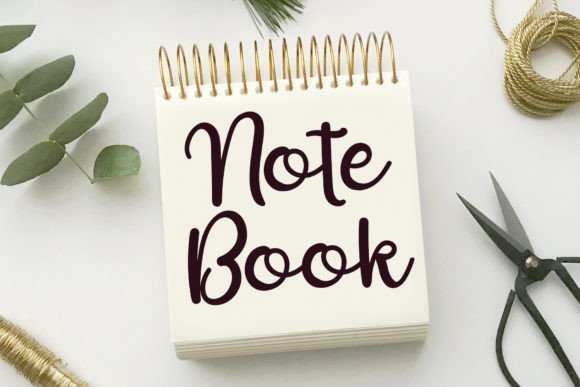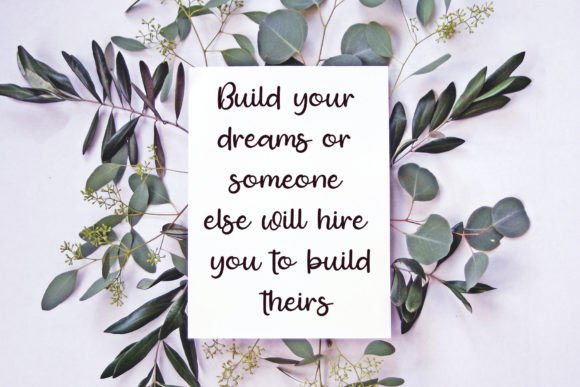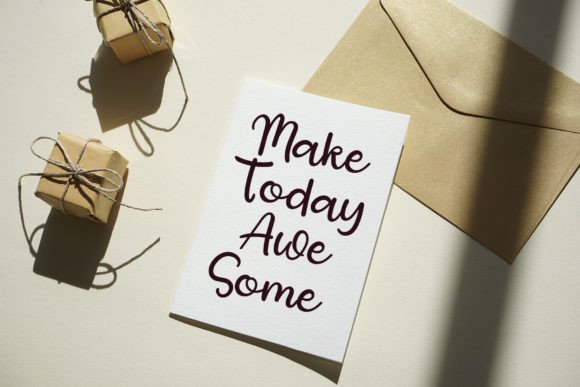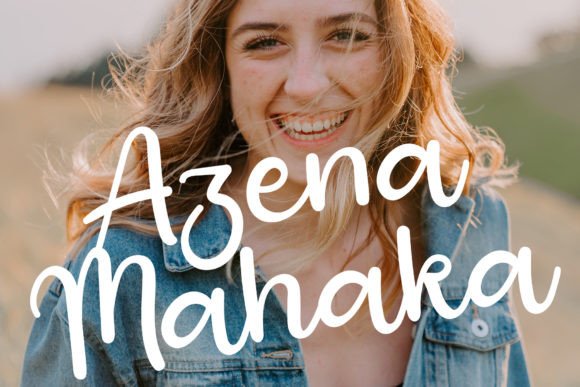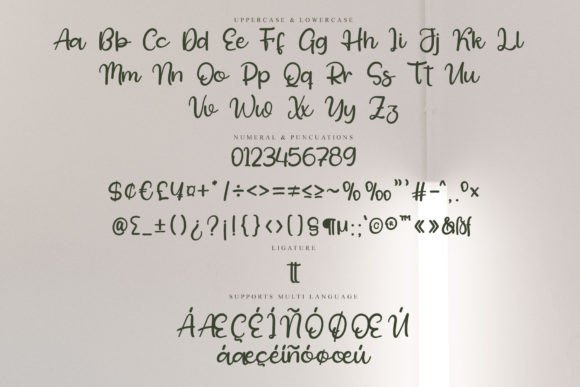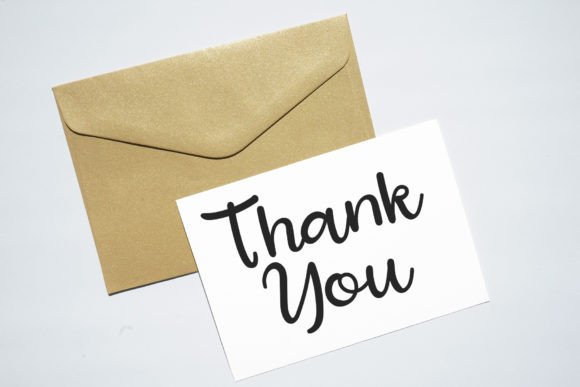
Introduction to Quick Font
Quick is a robust yet elegant script font designed to draw attention and highlight any project that requires a bold feel.
It looks powerful and is created to add a vibrant touch to your designs .
Key Features of Quick Font
Why Choose Quick Font?